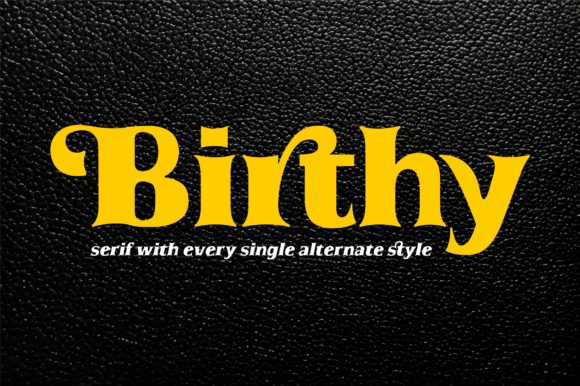
Behold, the awe-inspiring Birthy Font, a carefully crafted masterpiece that combines elegance and boldness in perfect harmony. This serif font, meticulously designed by ZetDesign, is not just a font; it's an artistic expression that will breathe life into your designs. Experience the visual delight of its alternate style for each letter unit, granting you the freedom to mold the font to your unique vision.
With its captivating curves and striking lines, Birthy Font exudes an aura of sophistication and charm. It's a font that commands attention, leaving a lasting impression on your audience. Whether you're creating logos, posters, or any other design project, Birthy Font will elevate your work to new heights.
Its versatility is truly remarkable. Birthy Font seamlessly adapts to any design aesthetic, effortlessly complementing a wide range of projects. Unleash your creativity and explore endless possibilities, knowing that Birthy Font will always be your trusted companion.
But what truly sets Birthy Font apart is its exceptional legibility, especially in small text. Each character is meticulously crafted to ensure clarity and readability, even at the smallest sizes. Embrace the power to communicate effectively without sacrificing visual appeal.